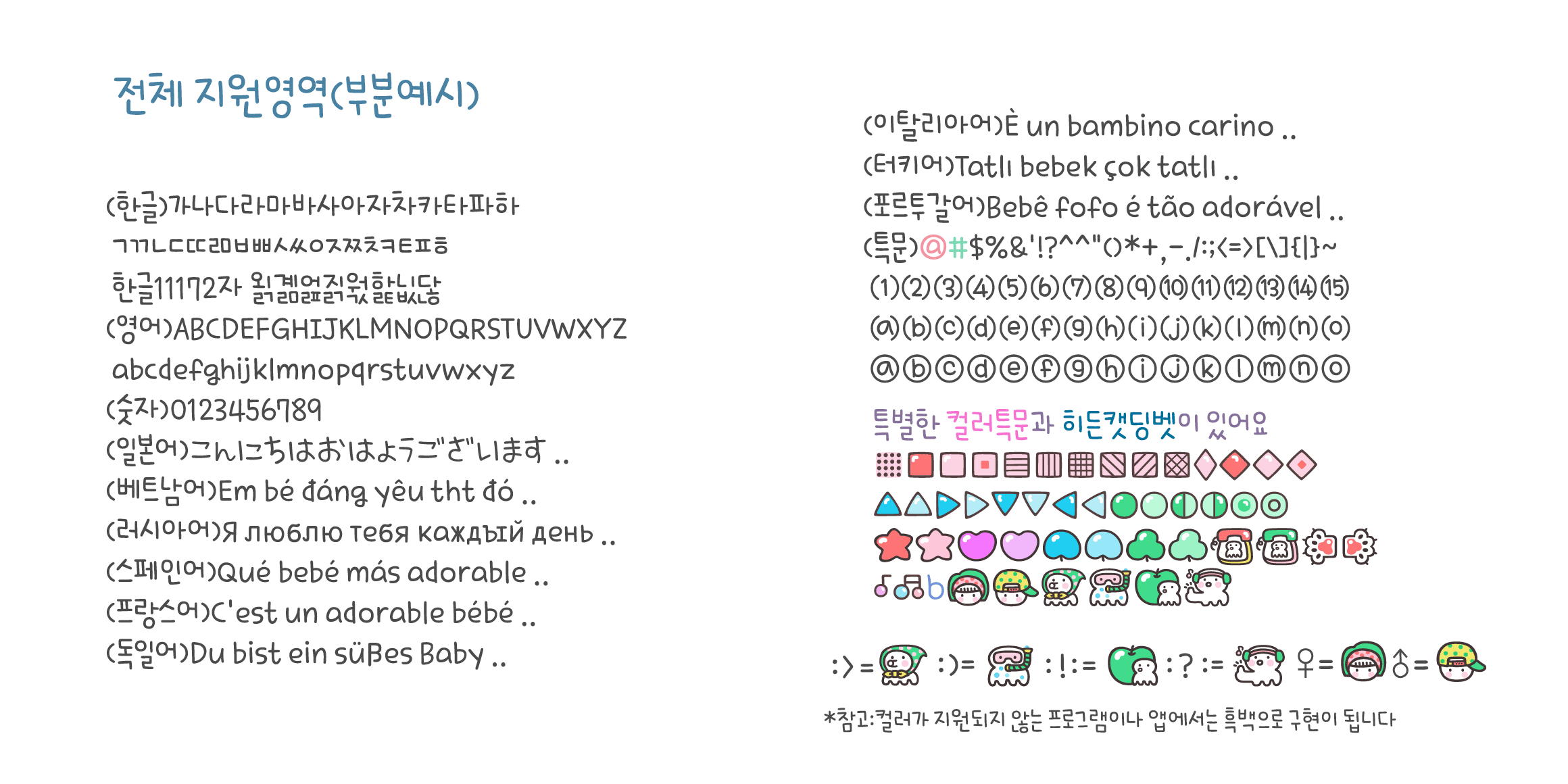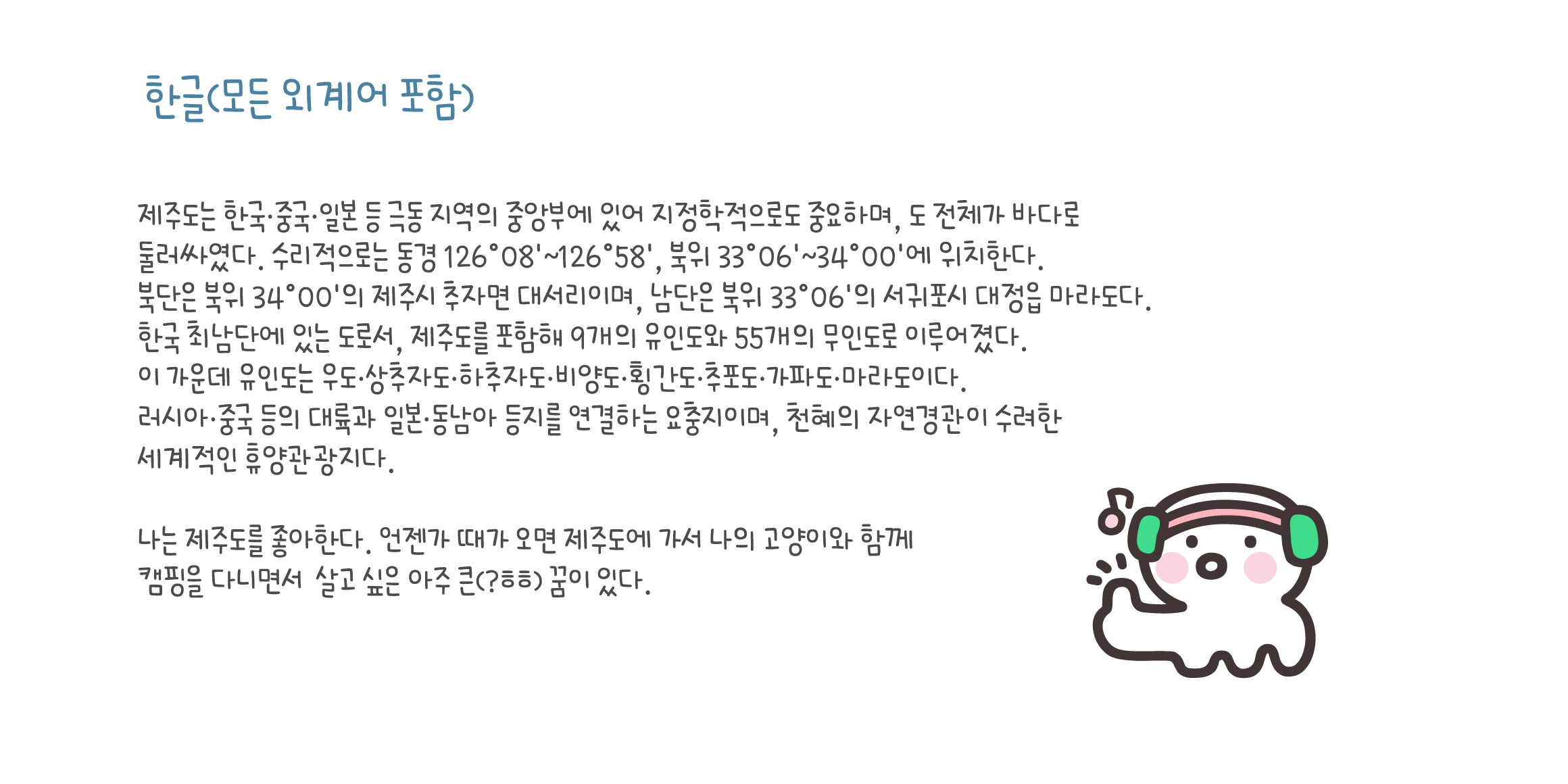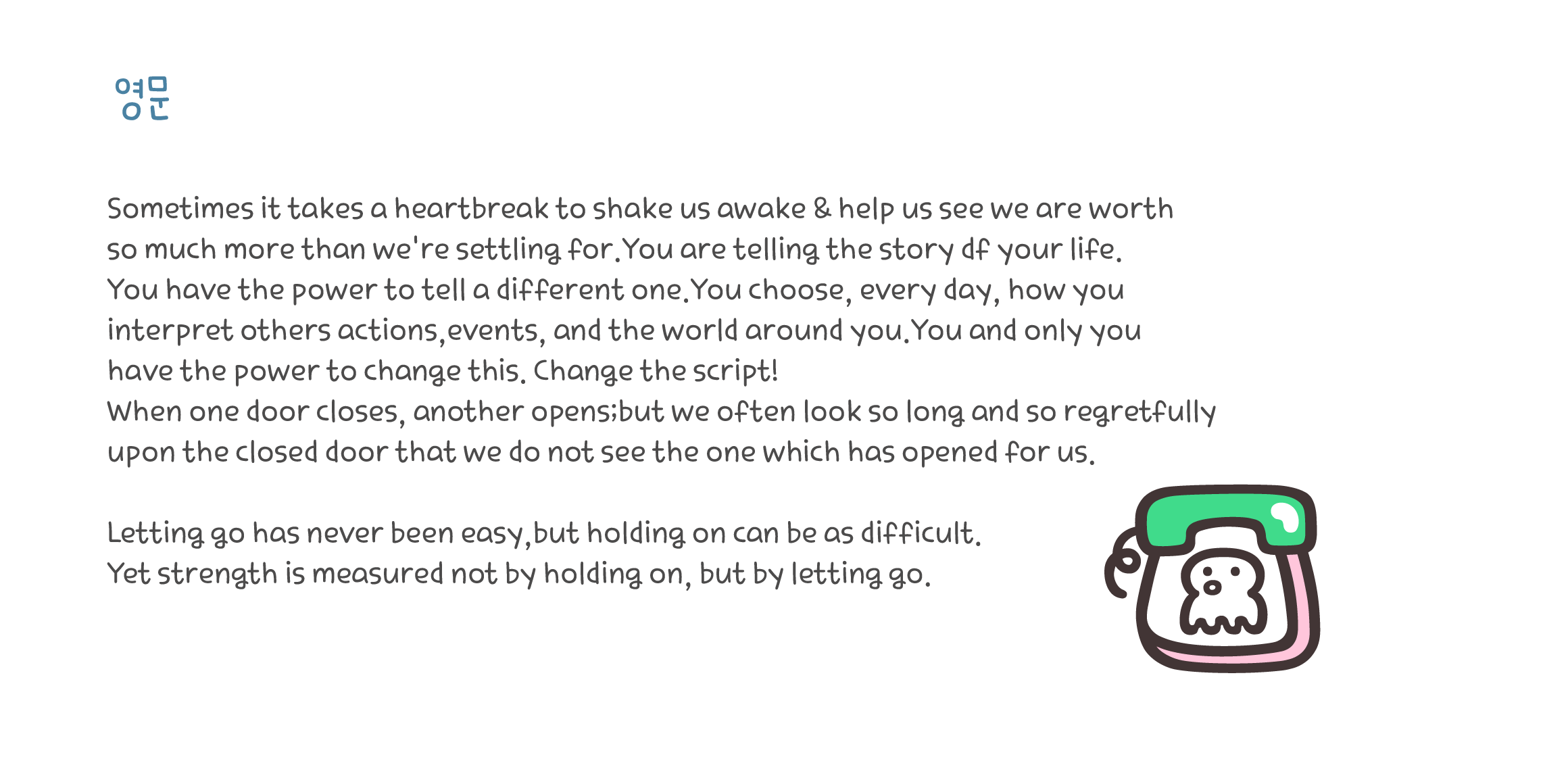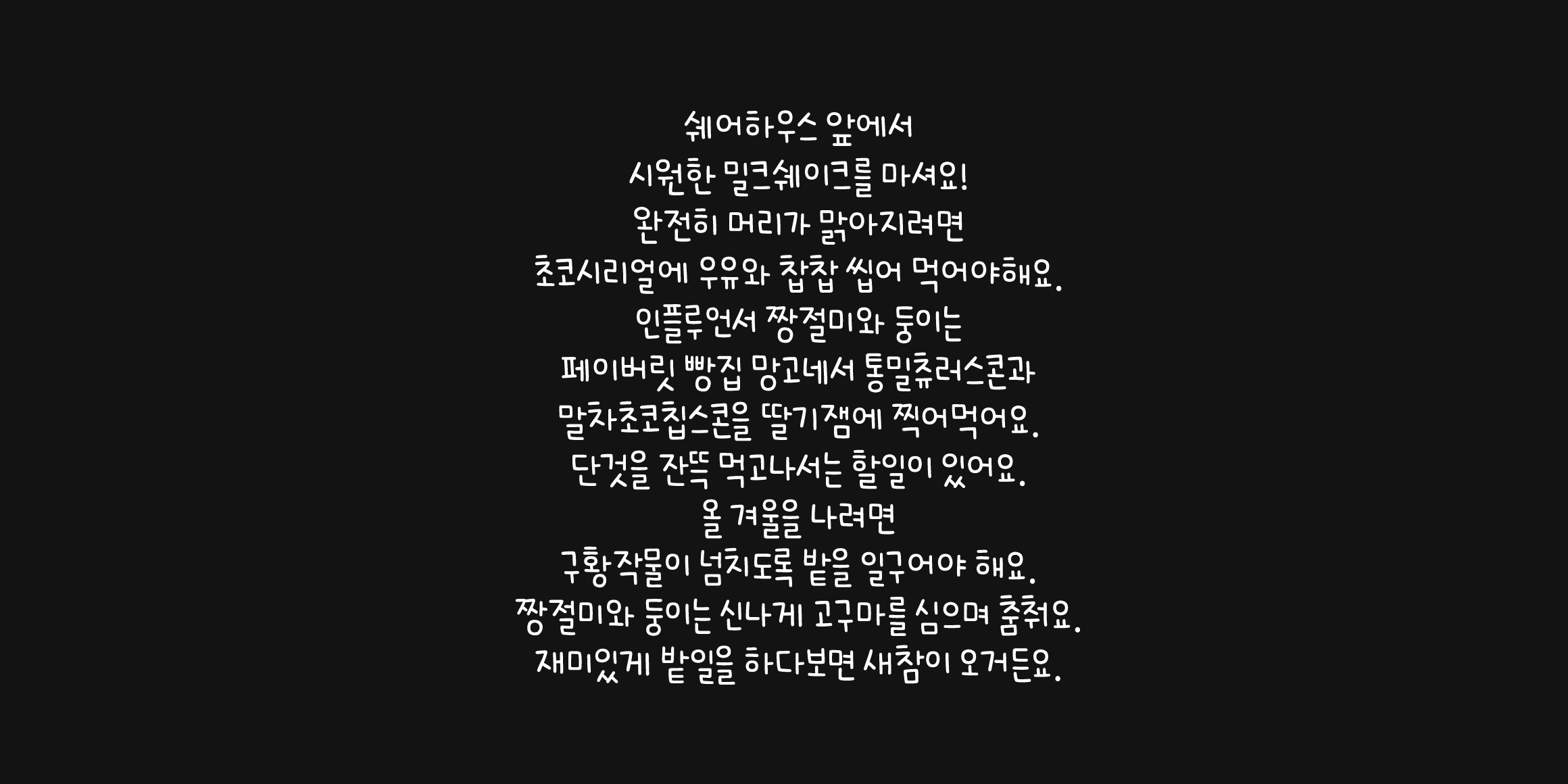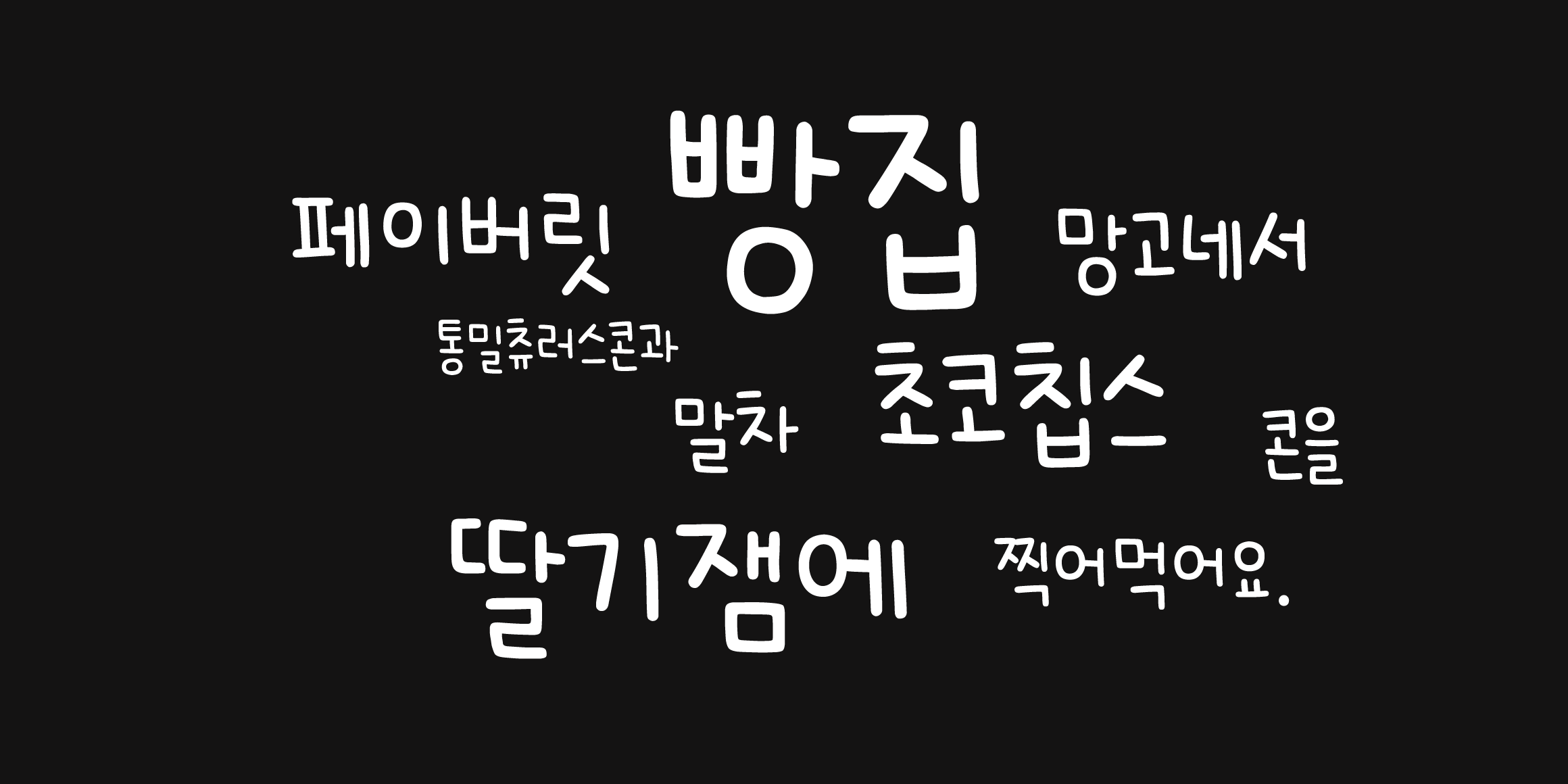
Cat2OctopusCheerup
CatFont
Cat2OctopusCheerup.
(Cat Font Season2)
This is for you, who may have had a hard and exhausting day.
Sometimes, go slowly on purpose, sometimes, take a break on purpose..
Don't struggle too hard! You don't have to!
Octopus, Cheer up!=Don't fall apart...
This is a font that comforts me.
♥catfont that delivers happiness.
♥catfont is your pet!!
Including English, Japanese, and Vietnamese.
Germany, France, Russia, Italy, Portugal, Spain, Turkey, etc.
It also supports the languages of various European countries.
It supports a wide range of languages and special characters.
♥ Keyboard : ! : and : ? : and ; ) and ; > If you type in a row,
Cat Font's unique dingbet is hidden.
♥ Including English, Japanese, and Vietnamese,
Germany, France, Russia, Italy, Portugal, Spain, Turkey, etc.
It also supports the languages of various European countries.
It supports a wide range of languages and special characters.
*There may be terminals or apps for which colors are not applied.
*Color letters may not change in thickness even if they are bolded.
*The music note (♪♬), phone (☎☏), directional finger (☜☞),
hot spring symbol (♨), male and female symbols (♀♂), etc.